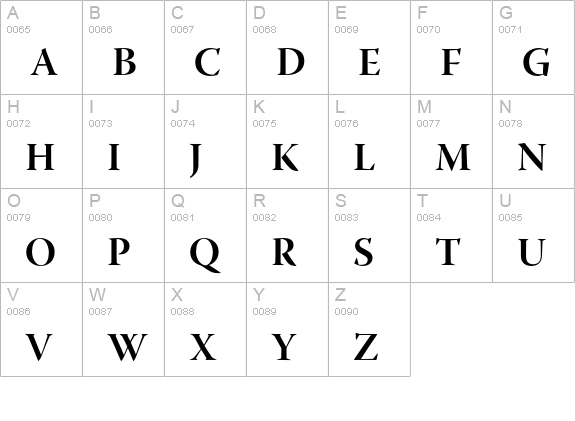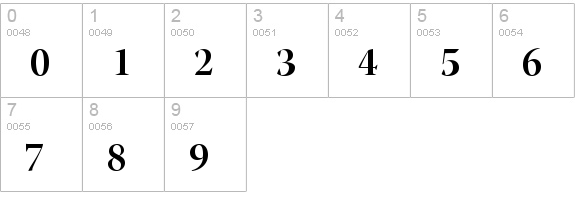
Warnock Pro Bold Display is a strong, high-contrast variant in the Warnock typeface family \xE2\x80\x94 well suited to headlines, attention-grabbing titles, and strong calls-to-action.
The Warnock Pro Bold Display font is a visually striking and captivating typeface that commands attention with its bold and assertive design. It exudes confidence and elegance, making it perfect for titles, headings, and other prominent design elements. With its strong and distinct letterforms, Warnock Pro Bold Display effortlessly captures the essence of modern sophistication. Its bold weight and generous proportions ensure maximum impact and readability, making it an excellent choice for both print and digital projects. This font offers a harmonious blend of traditional and contemporary elements, striking the perfect balance between classic elegance and contemporary flair. Its versatility allows it to be used across a wide range of design applications, including branding, packaging, advertising, and editorial design. One of the best features of Warnock Pro Bold Display is that it is freely available to download at FontsMarket.com. This means that designers and enthusiasts alike can access this exceptional font without any cost, making it an incredibly valuable resource for anyone looking to elevate their designs. Whether you're designing a sleek and modern website, an eye-catching poster, or a stylish magazine spread, Warnock Pro Bold Display is sure to impress. Its bold and commanding presence will make your designs stand out and leave a lasting impact on your audience. Download Warnock Pro Bold Display for free at FontsMarket.com and take your designs to a whole new level of sophistication and professionalism.